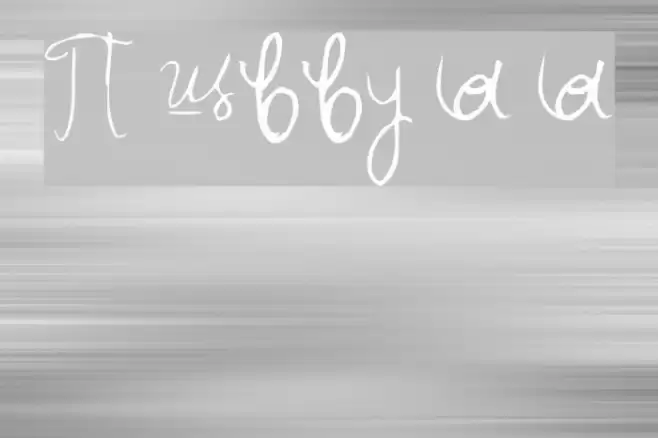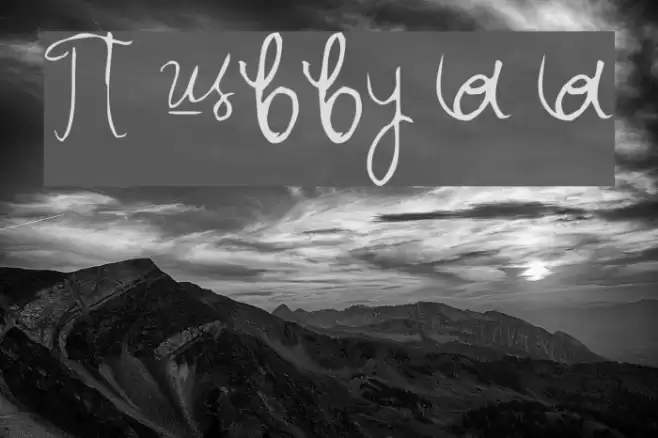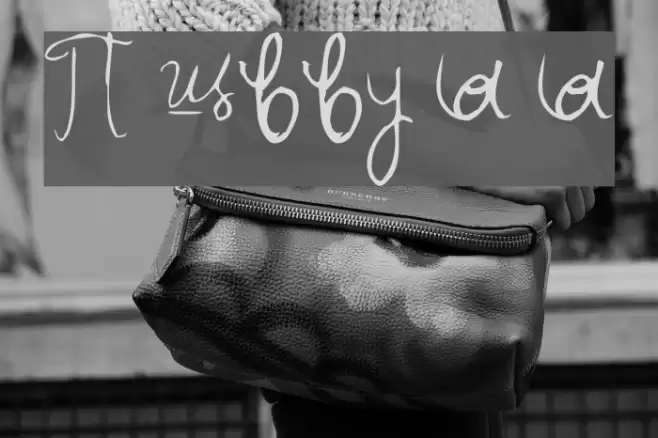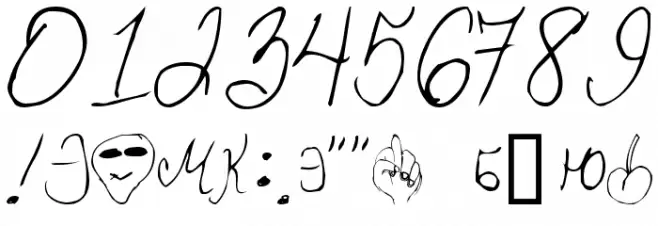
Goddess Font
Goddess Description
This font features a whimsical and artistic script style, characterized by its flowing, cursive letters that convey a sense of elegance and creativity. The uppercase letters exhibit a playful yet sophisticated flair, with varying stroke widths that add a dynamic quality to the text. The lowercase letters maintain a consistent style, complementing the uppercase with their graceful curves and loops. Numbers are crafted with the same artistic touch, ensuring a cohesive look throughout. Special characters are uniquely designed, adding a touch of personality and charm. Overall, this font exudes a sense of artistic freedom and expression, making it suitable for creative and decorative purposes.
A whimsical and artistic script font with flowing, cursive letters from Uncategorized fonts.
- Proposed Projects: Ideal for wedding invitations, greeting cards, artistic branding, and decorative projects.
- Use Case: Logos, Invitations, Artistic projects